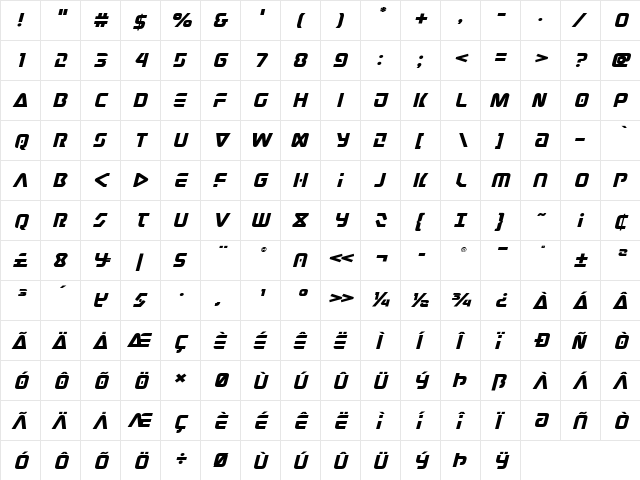
Judge Expanded Italic Expanded Italic
Design Context for Judge Expanded Italic Typeface
Judge Expanded Italic is a composed and adaptable typeface that performs quietly and consistently across a wide range of design contexts. The dynamic lean of this cut emphasises speed and emphasis in any layout.
Pro Tip: Use Judge Expanded Italic for emphasis, pull quotes, and subheadings where its slanted energy can add rhythm to the layout.